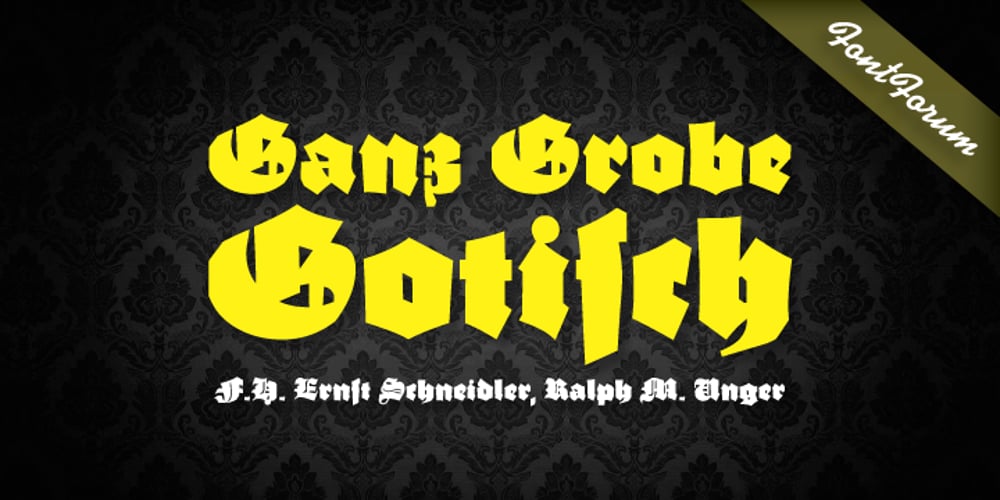
Ganz Grobe Gotisch
Ganz Grobe Gotisch font
Ganz Grobe Gotisch Font Family was designed by Ralph M. Unger and published by URW Type Foundry. Ganz Grobe Gotisch contains 1 styles and family package options. It is not only coarse but extremly black, and it is quite right to name it Black Letter in English. Ernst Schneidler, the designer, created the smallest possible counters. Still, this very coarse black letter is sensitive in detail and drawn with a high level of aesthetics. By the way, it was said in Schneidler’s design class in Stuttgart that his number one student Walter Brudi had cut some of the characters with �silhoutte scissors� from black paper. Sharing his ideas and work with his students does not at all decrease or lower his copyright.Ganz Grobe Gotisch is not only a distinguised but also a very catchy design.(Albert Kapr in Fraktur — �Form und Geschichte der gebrochenen Schrift�.)